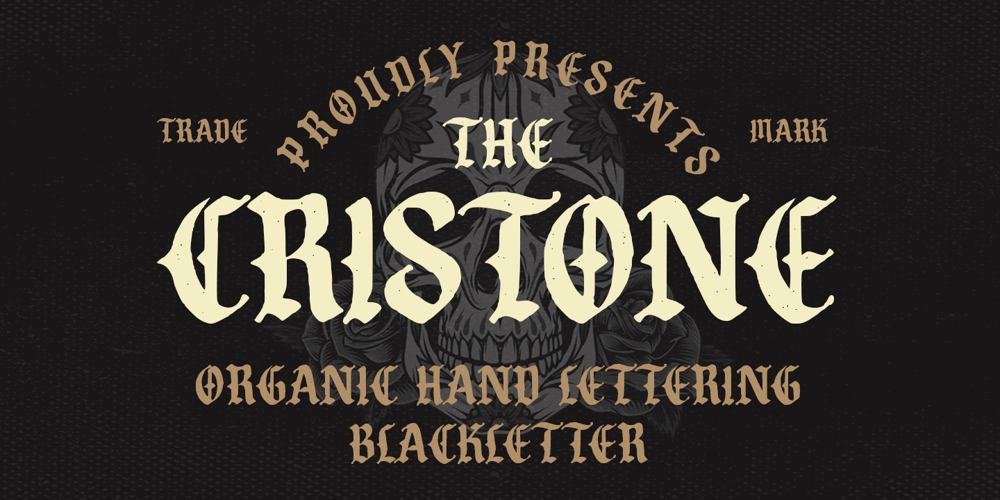
Cristone Font Family was designed by Bangkit Tri Setiadi and published by Blankids. Cristone contains 1 styles and family package options. Introducing of our new product the name is Cristone Blackletter Font. Cristone inspired by original handlettering blackletter style this font is a fun theme very good for display, tshirt design, craft, quote sign, logotype and etcFEATURES : Uppercase Lowercase Number Punctuation Multilingual PUA Encode Opentype